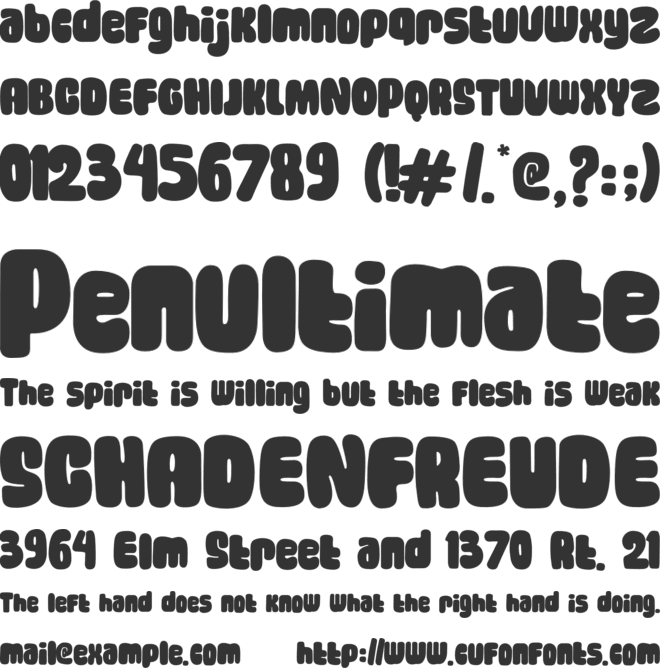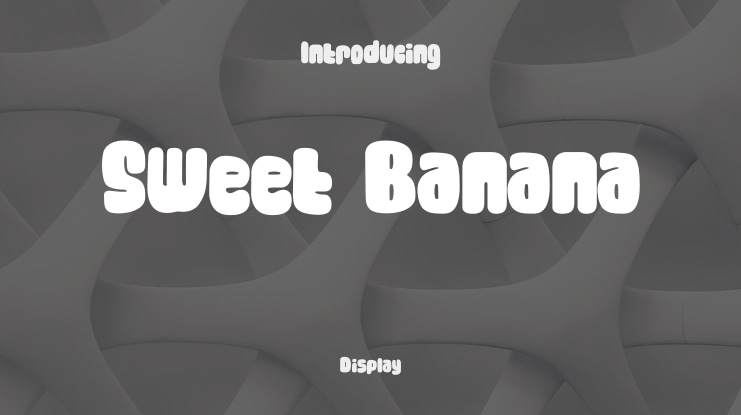
Sweet Banana Font
Sweet Banana is a bold and striking display font that blends assertive structure with soft, rounded edges. Its thick strokes and smooth curves create a strong visual impact while maintaining a friendly, approachable tone. Perfect for headlines, branding, and creative design projects, Sweet Banana delivers a balance of confidence and charm, making any message stand out with style and personality.